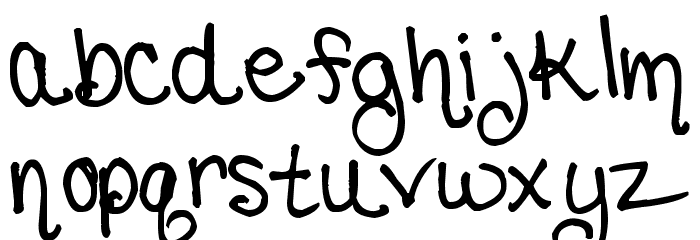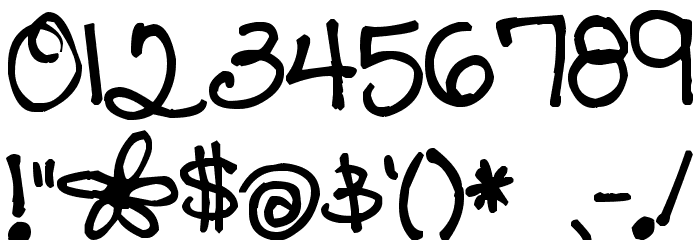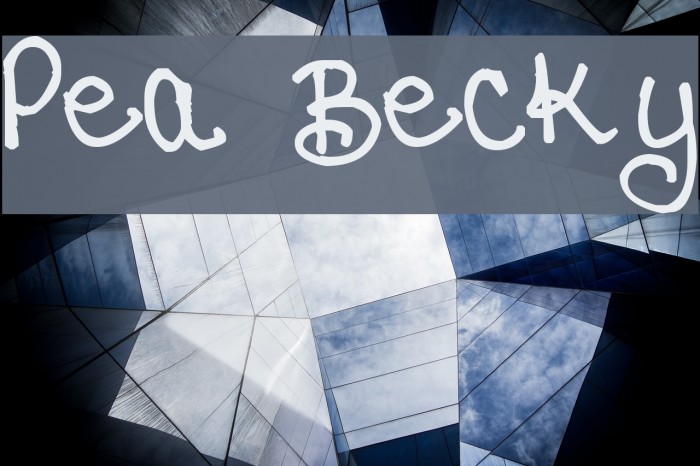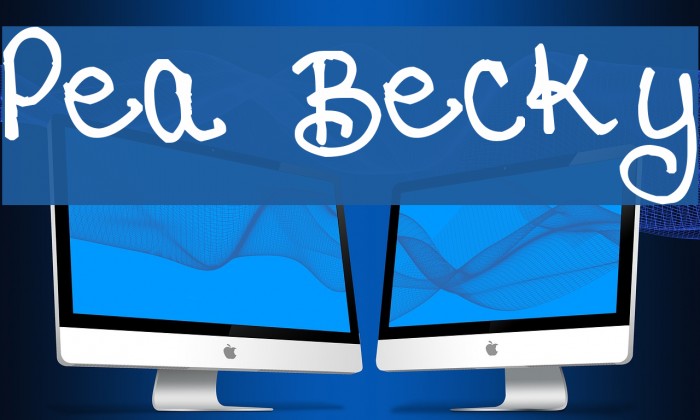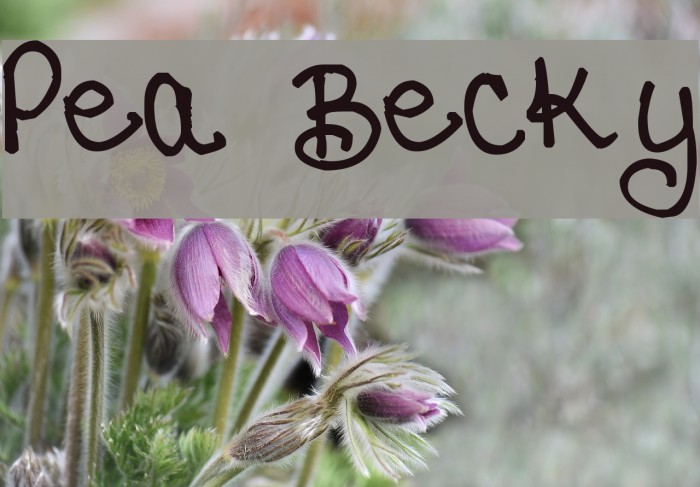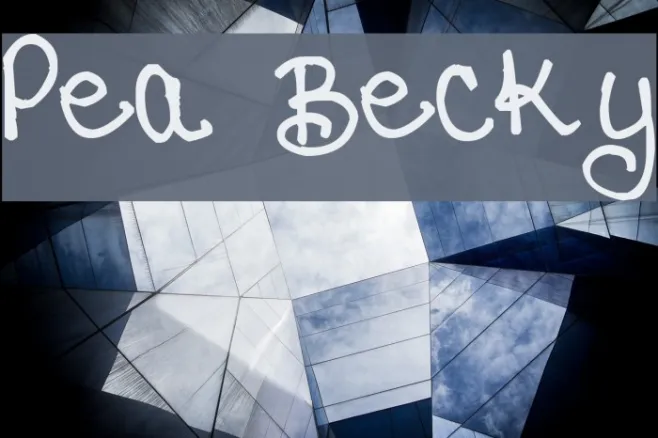
Pea Becky Font
This font exudes a playful and whimsical charm, characterized by its handwritten style. The letters are crafted with a casual flair, featuring rounded edges and a slightly uneven baseline that adds to its informal appeal. The uppercase and lowercase letters maintain a consistent style, with a noticeable loop in certain characters, enhancing its quirky personality. Numbers and special characters follow the same playful theme, making it versatile for various creative projects. The font's overall appearance is friendly and approachable, ideal for designs that require a personal touch.
A playful, handwritten font with a whimsical and casual style.
- Proposed Projects: Ideal for greeting cards, children's books, playful branding, and personal projects.
- Overall Style: Casual
- Use Case: Headlines, Informal text, Creative projects